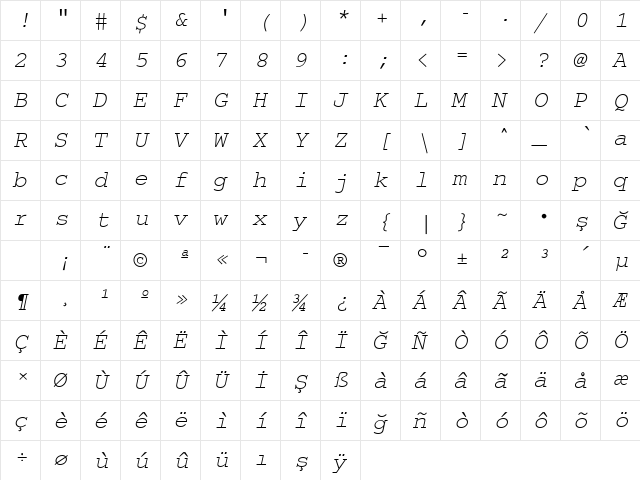
Courier2 Normal-Italic Font Preview
Courier2 Normal-Italic
Design Context for Courier2 Typeface
Courier2 uses fixed-width spacing throughout, giving it the structured, systematic character associated with coding environments and technical documentation. The slanted form adds forward momentum and visual energy.